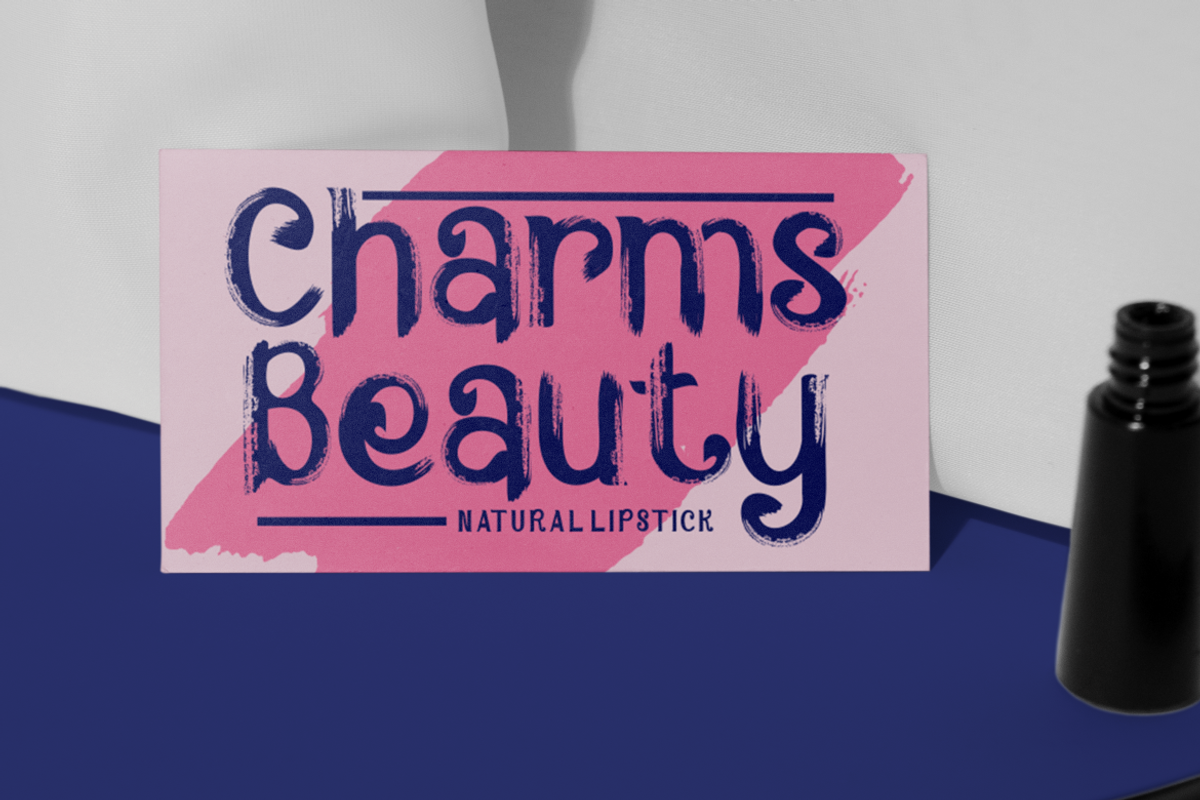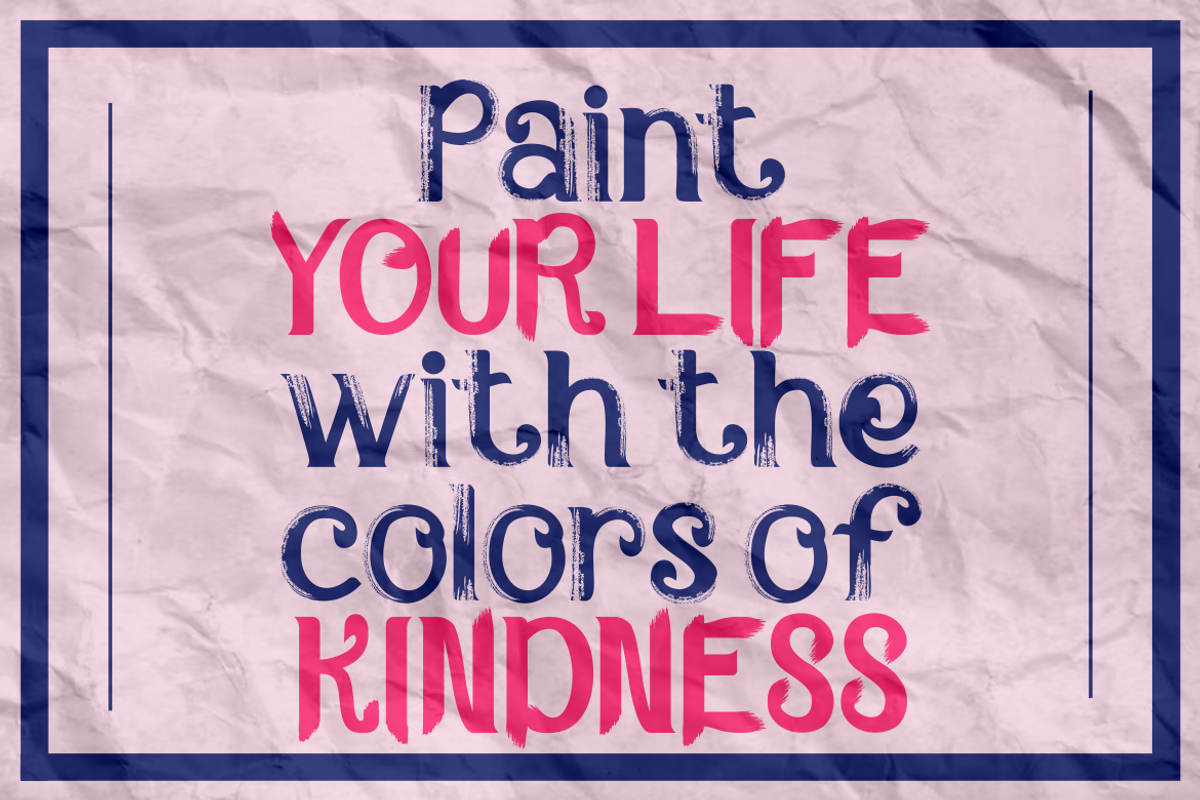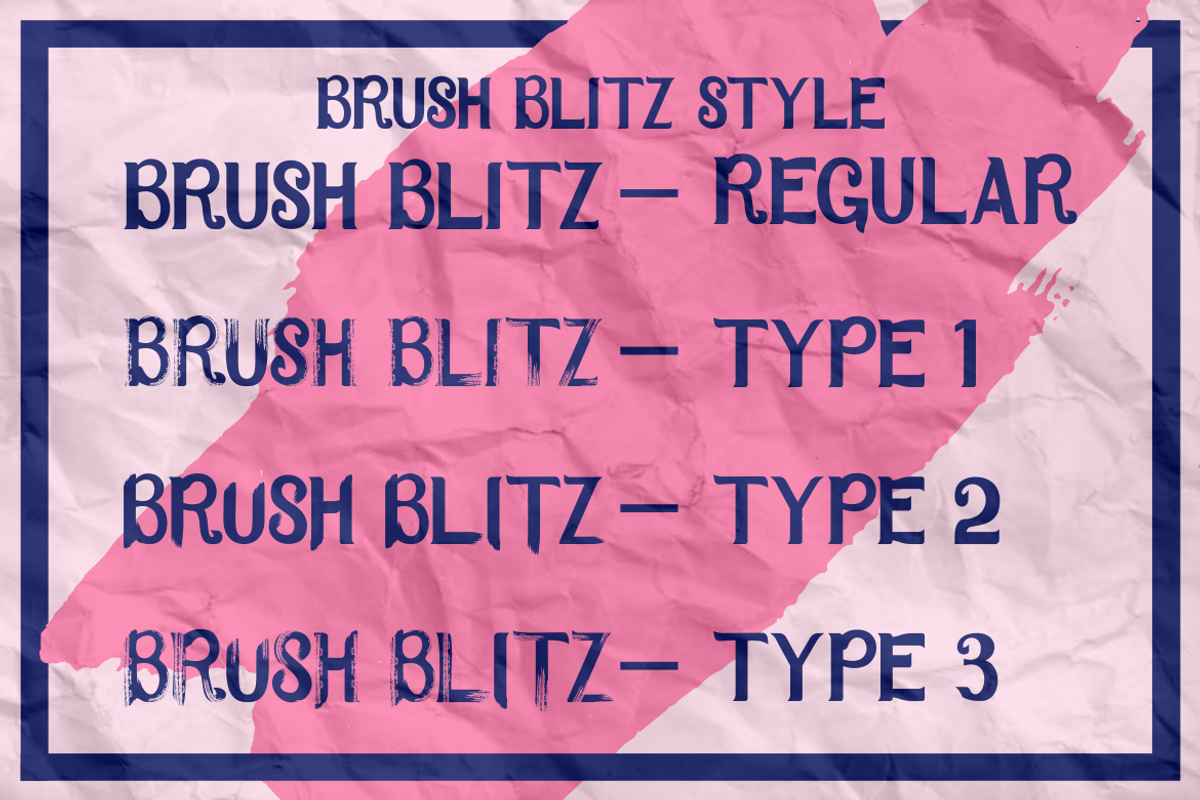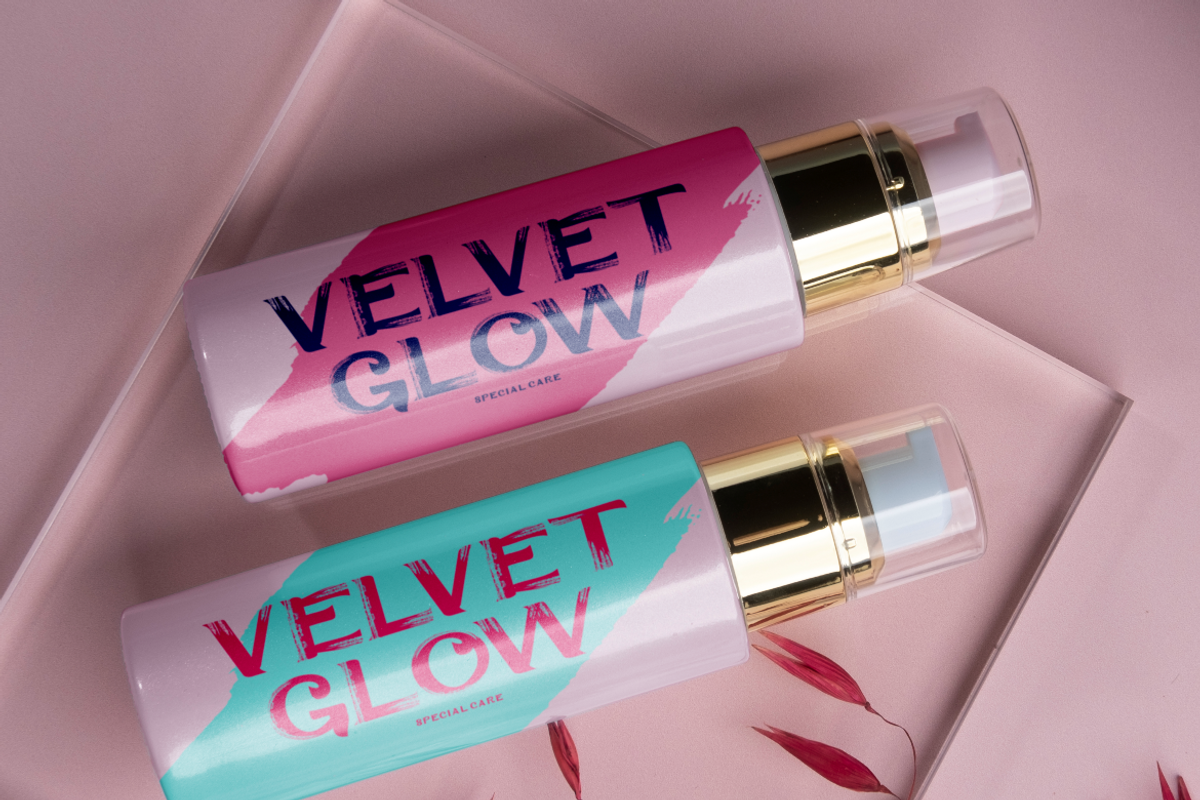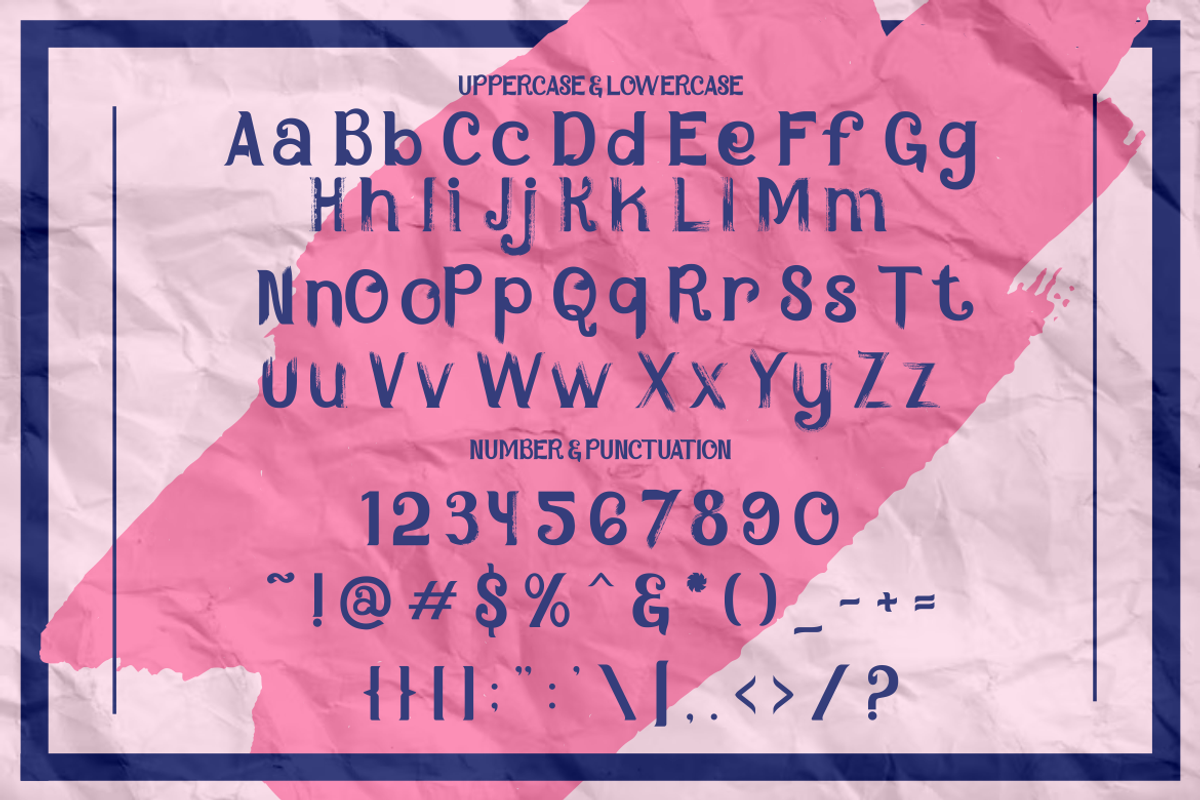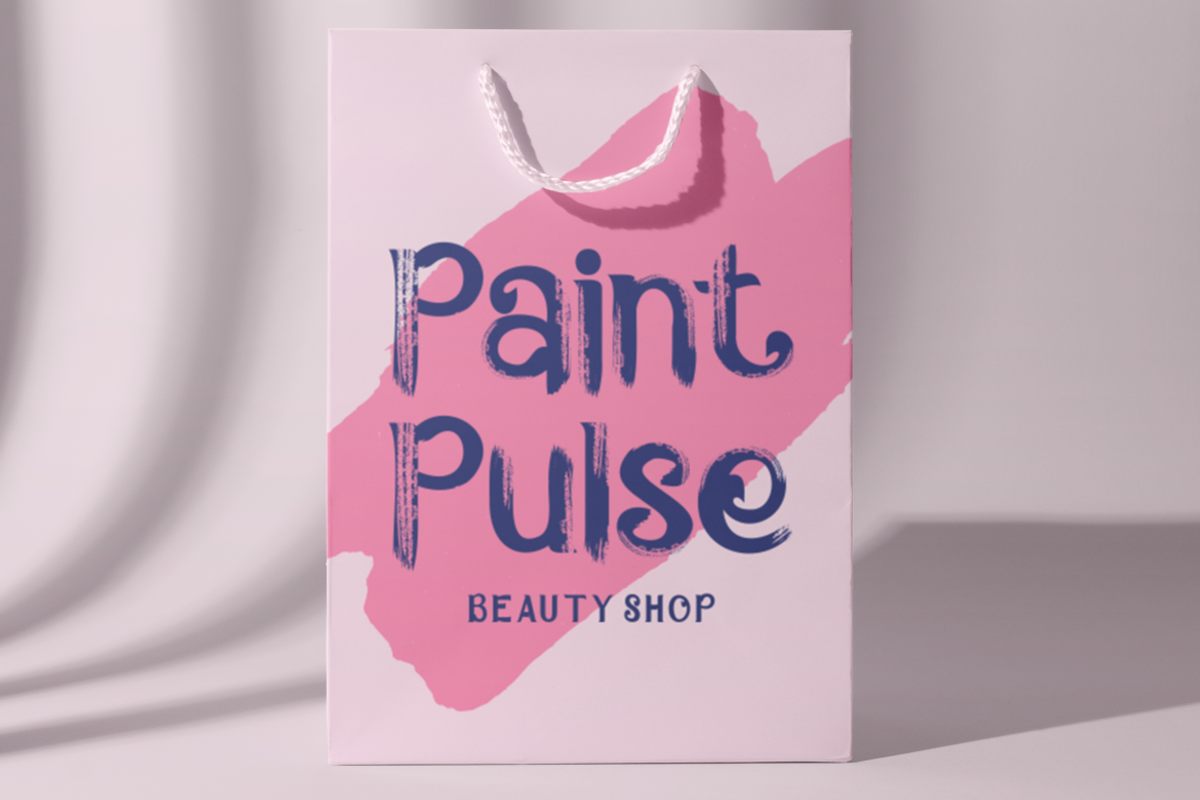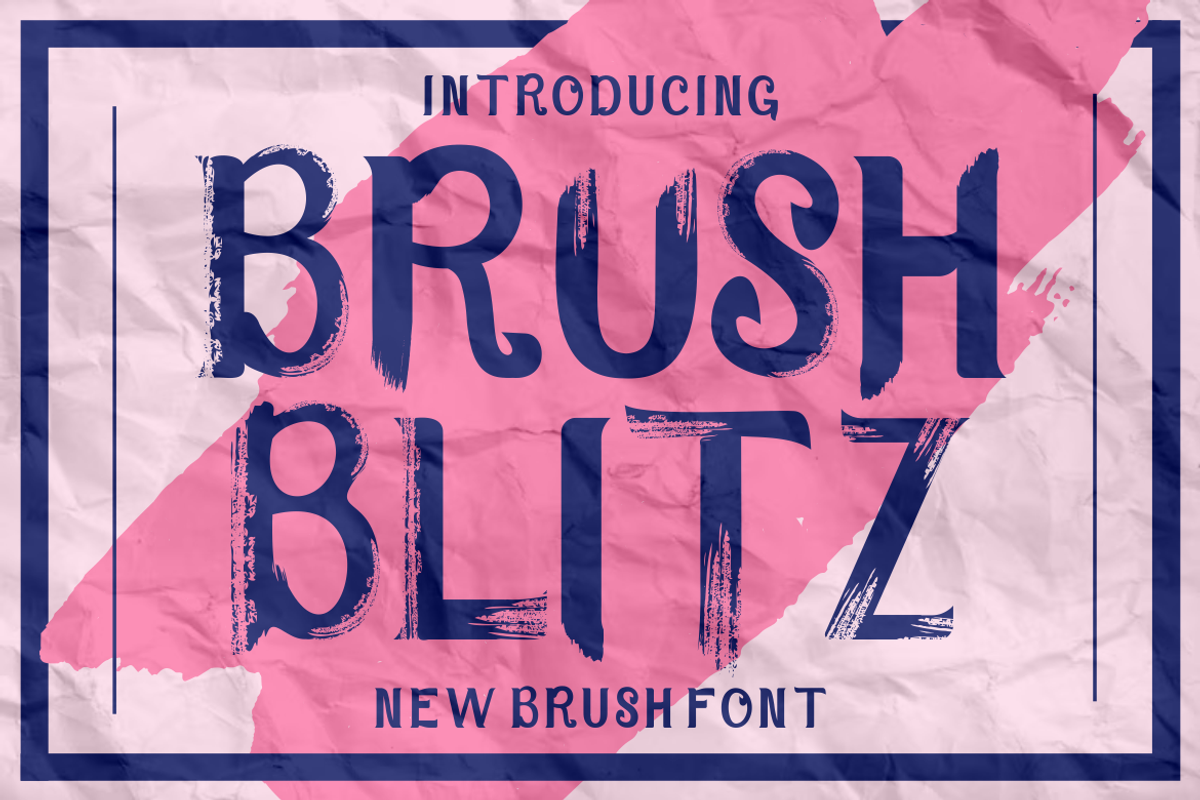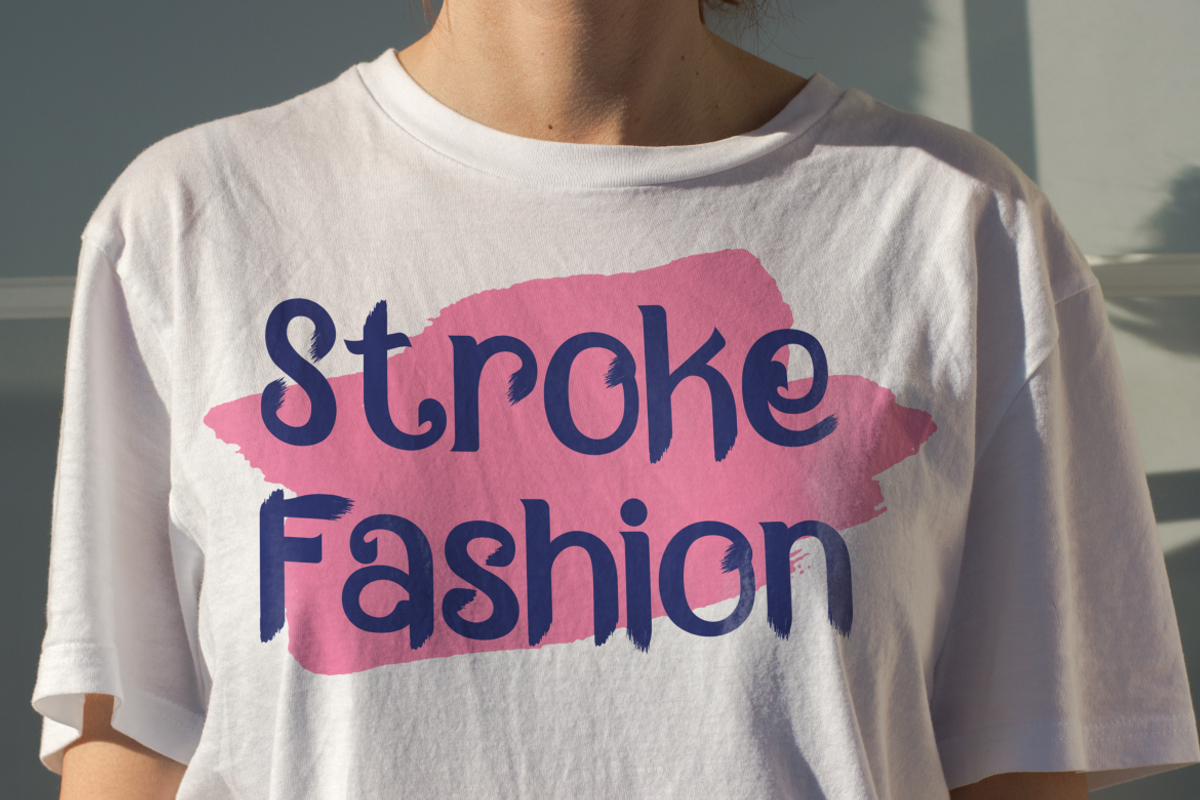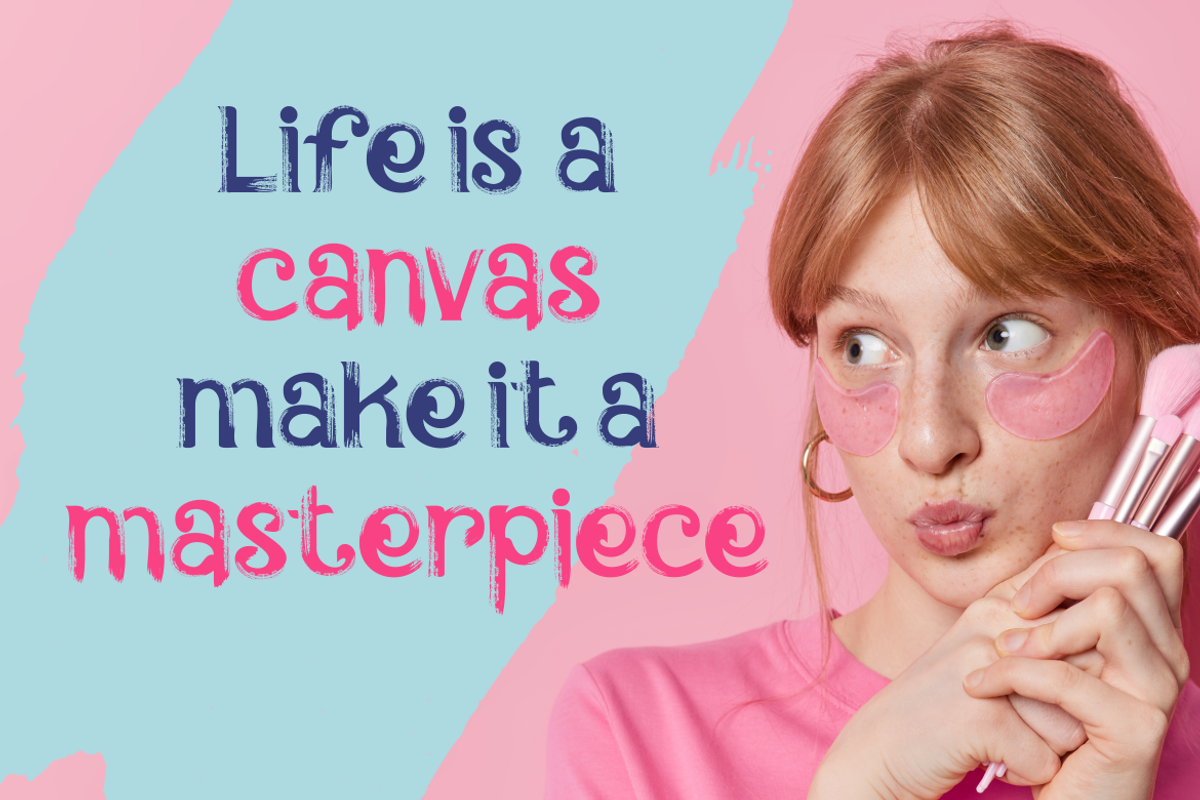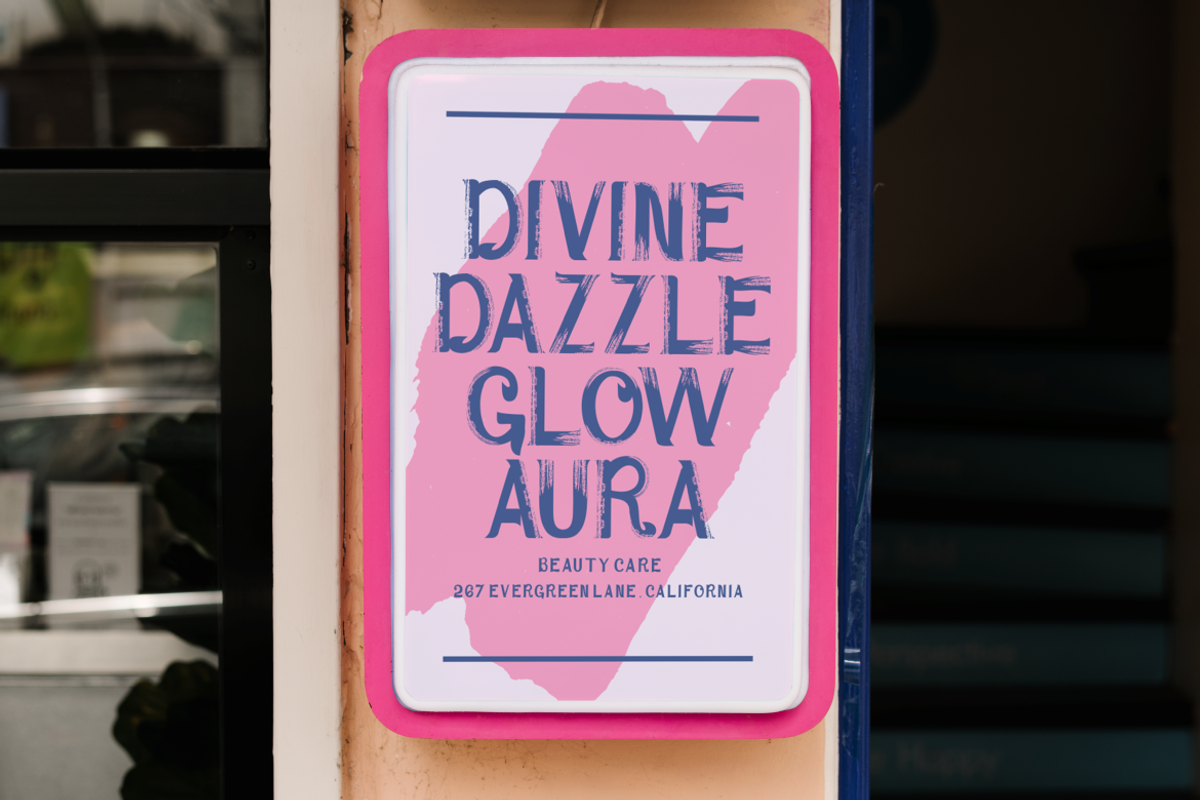
Brush Blitz - New Brush Font
Unleash the raw energy of creativity with Brush Blitz - Brush Font, a typeface that embodies the spirit of artistic freedom. This font is not just a set of characters; it’s a toolkit for expression, designed to inject life and movement into your projects. With its bold, textured strokes that echo the dynamism of brushwork, Brush Blitz is perfect for those who want their words to stand out with an authentic, handcrafted feel. It’s a font that dances across the page, making it ideal for logos that need to make an impact, branding that dares to be different, and crafting that requires a personal touch.
Whether you’re designing an invitation that speaks from the heart, packaging that tells a story, or a poster that shouts from the rooftops, Brush Blitz is your ally. It’s a font that’s as versatile as it is striking, suitable for business communications that need a touch of humanity, greeting cards that convey warmth, and children’s books that inspire imagination. For magazine layouts and any design that calls for a font with character, Brush Blitz delivers with its unmistakable presence and style.